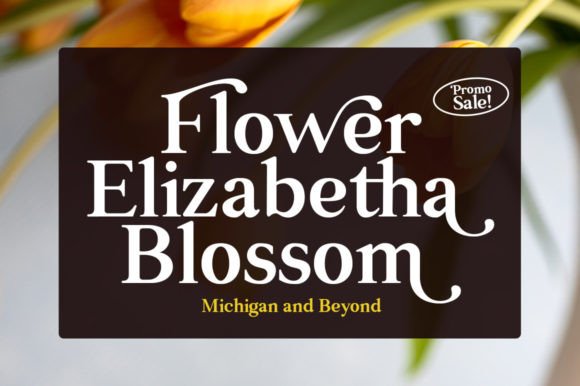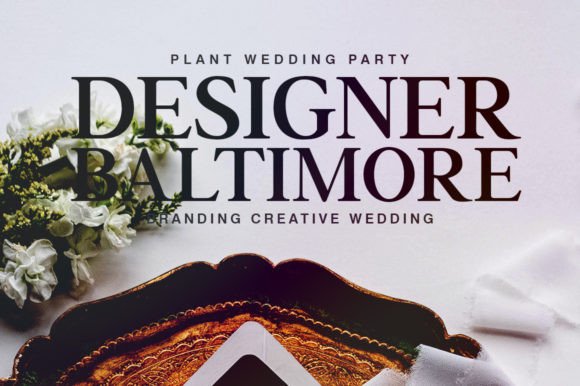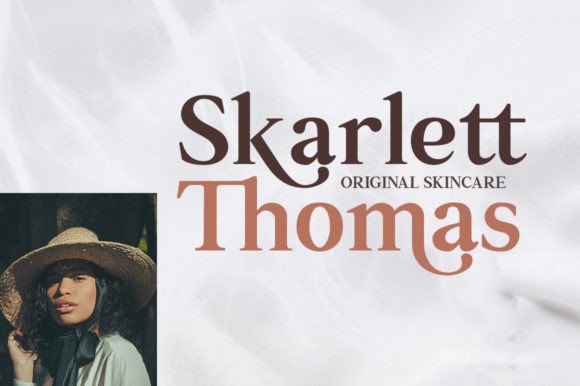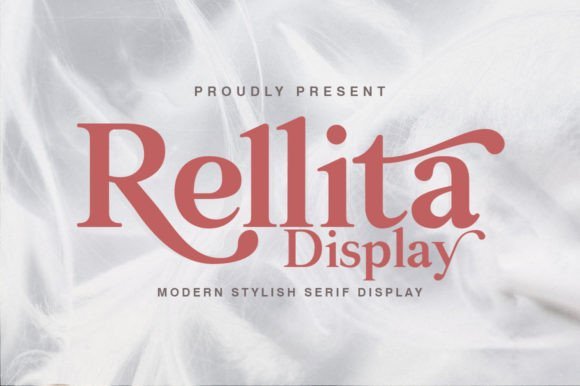
Introduction to Rellita Display Font
Rellita Display is a serif font with a luxurious, elegant, modern, unique, and classy look.
This font was specially created for luxury-themed projects, branding projects, magazines, Social Media, Branding, Logos, website headers, or simply as a stylish text overlay to any background image and Many more need a Luxury touch.
Rellita Display Font offers exceptional quality and versatility, making it a valuable addition to your design toolkit. Whether you’re creating for personal projects or commercial use, Rellita Display Font delivers professional results.